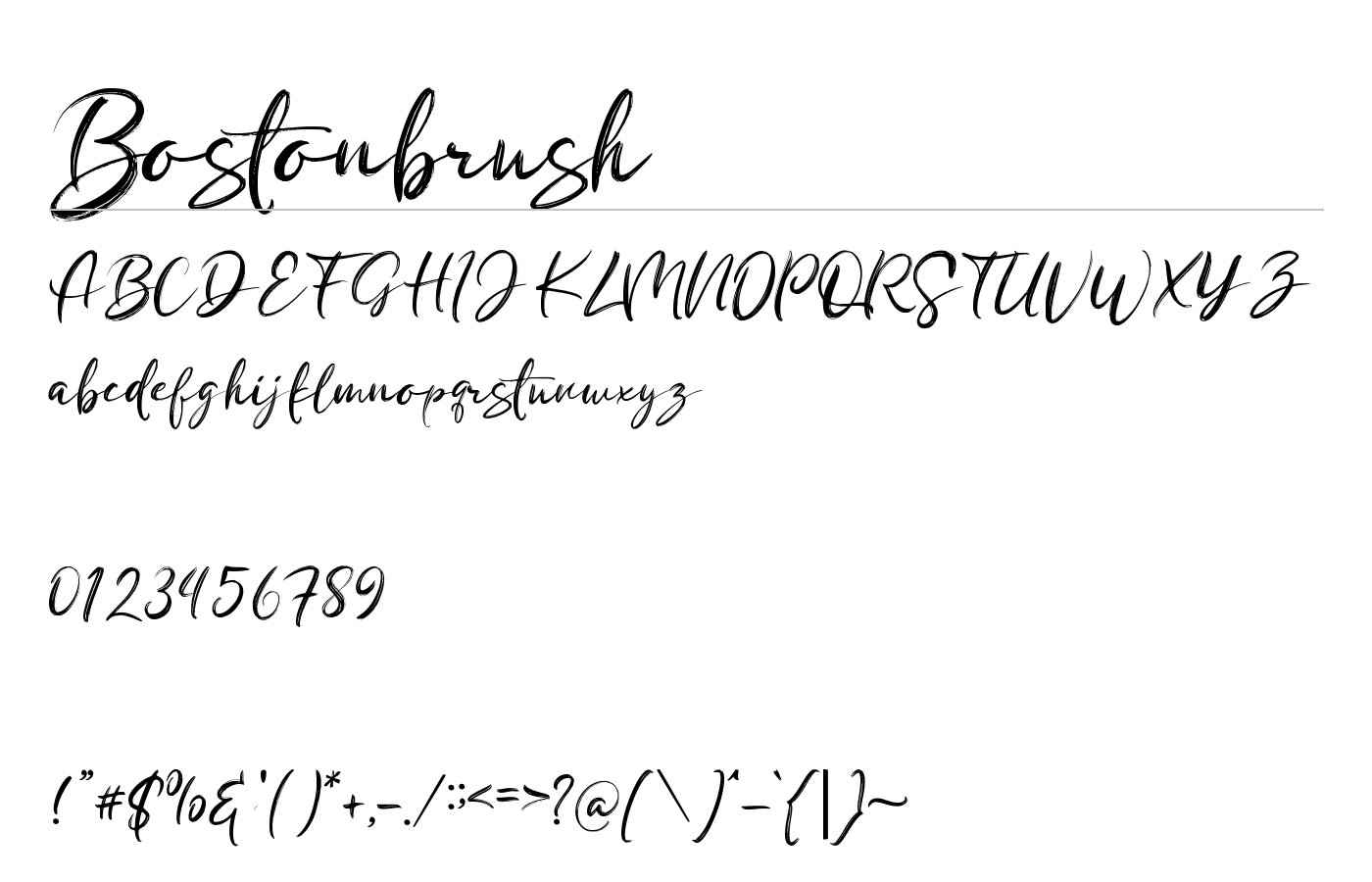
Bostonbrush is a lively and expressive script font that mimics natural brush strokes with its textured, slightly rough edges and varying stroke widths. It feels casual yet artistic, making it perfect for creative branding, invitations, or headlines that want to convey a handmade, personal touch with elegance and energy. This font works well where a dynamic, stylish, and approachable look is desired.
Bostonbrush Font
About Bostonbrush Font